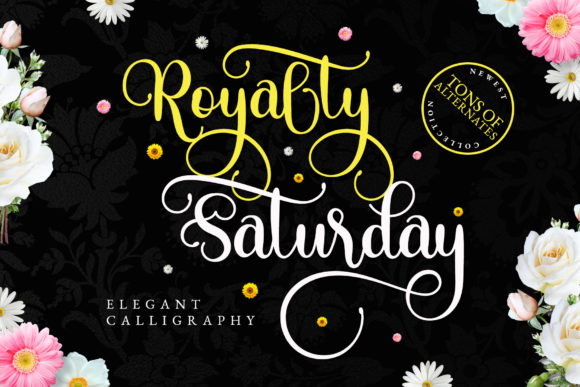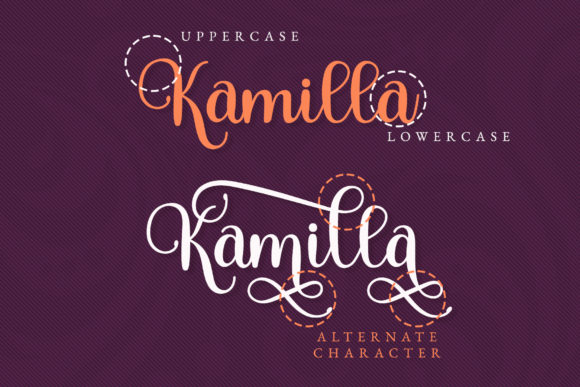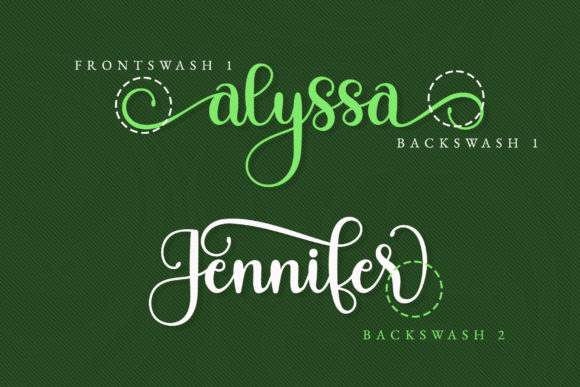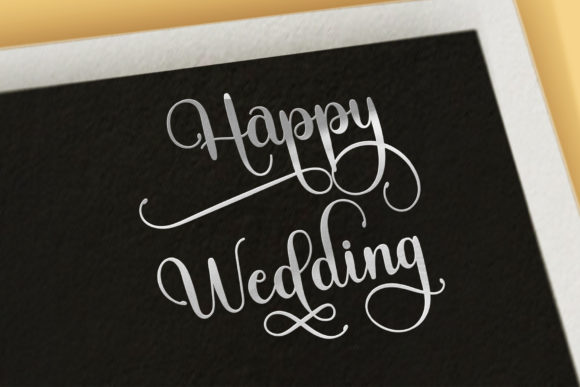
Royalty Saturday Font
About the Royalty Saturday Font
From logos to headlines, the Royalty Saturday Font is the perfect choice for making a lasting impression. Royalty Saturday is elegant modern calligraphy script. It is luxurious, stunning, and swirly. It has tons of alternates to give you many options in designing.
Royalty Saturday’s elegant style makes it ideal for headlines, logos, short quotes, and invitations—contexts where its luxurious flourishes shine. It’s perfect for branding projects aiming for a sophisticated, high-end feel, or packaging that demands attention. However, its decorative nature makes it less suitable for body text or UI elements where readability is paramount. Extended use could hinder legibility.
This script font’s inherent personality is sophisticated and glamorous. To balance its ornate style, consider pairing it with a clean sans-serif like Montserrat for body text or a geometric sans-serif like Futura for a more modern contrast. A classic serif like Garamond could also work well, offering a traditional counterpoint to the script’s modern elegance.
For a more playful feel, a simpler, slightly informal script could be used as a secondary font for smaller text elements. Avoid pairing it with other highly decorative fonts to prevent visual overload.
Royalty Saturday Font Usage Examples
Royalty Saturday Font Example